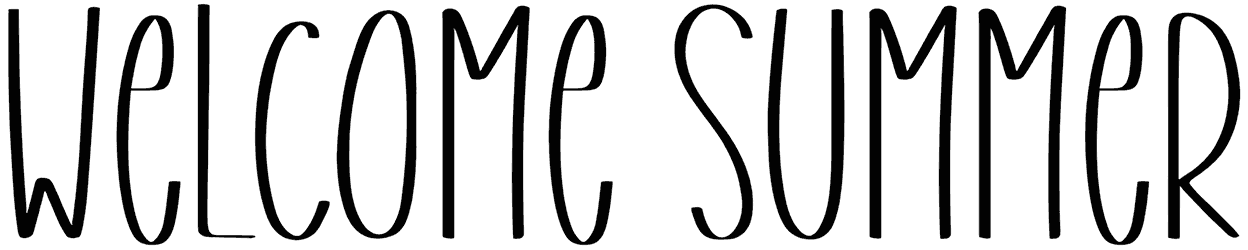
Welcome Summer Font
If you are in the mood for adding a personalized touch to your artwork, such as posters, illustrations, menus, gift cards, and social media posts, we would recommend Welcome Summer, a magical script font that is designed…
If you are in the mood for adding a personalized touch to your artwork, such as posters, illustrations, menus, gift cards, and social media posts, we would recommend Welcome Summer, a magical script font that is designed with a considerable amount of delicacy, playfulness, and softness.
This all-caps handwritten font can be your assistant in attracting the attention of the audience at the first glance and increasing the visibility of your content.